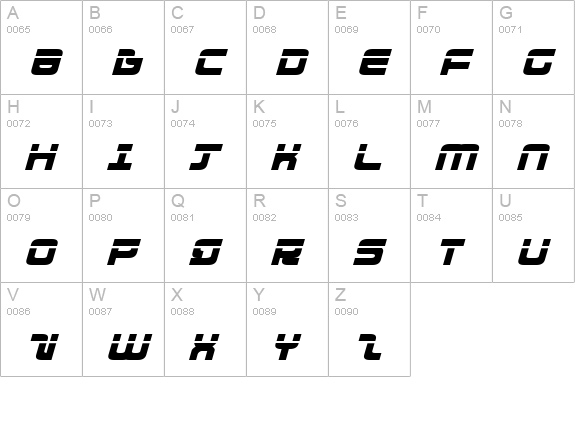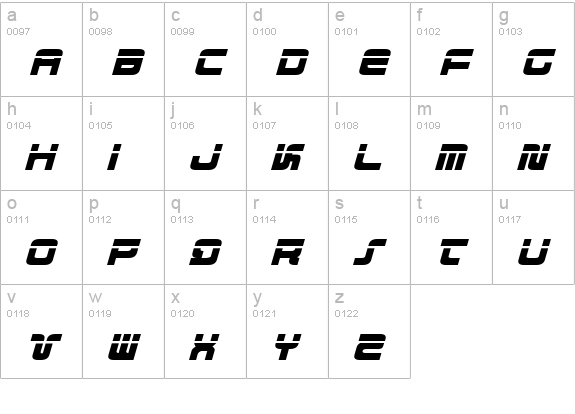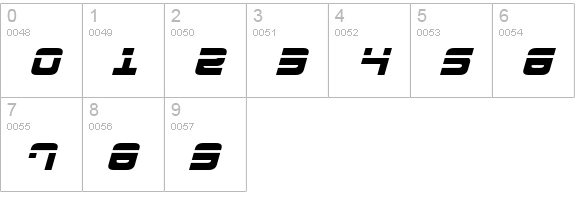
Direktor Laser Italic is a distinctive, italic variant in the Direktor typeface family \xE2\x80\x94 well suited to design and typography projects.
Direktor Laser Italic is a sleek and modern font that exudes sophistication and elegance. Its sharp, angular letterforms are perfect for creating eye-catching designs that demand attention. The italicized style adds a touch of flair and dynamism to any project. Best of all, Direktor Laser Italic is available for free download at FontsMarket.com. Whether you're working on a branding project, designing a poster, or creating a website, this font is sure to make a bold statement. Don't miss out on the opportunity to add this versatile and striking typeface to your collection. Download Direktor Laser Italic today and take your designs to the next level!